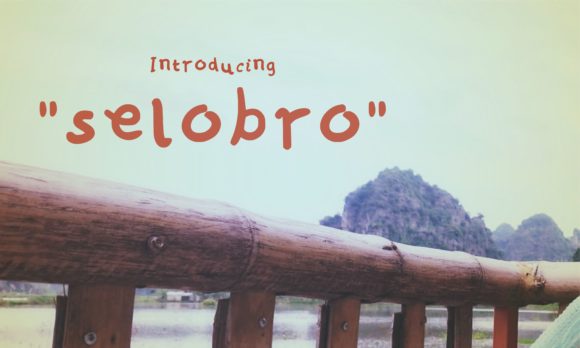
Introduction to Selobro Font Font
Fonts play a crucial role in design, and the Selobro Font font is a typeface that brings both character and versatility to any project. Whether you’re working on a branding project, a website, or a print design, the Selobro Font font offers a unique style that can elevate your work.
| 📌 Font Name | Selobro Font |
| 👤 Author | be young |
Selobro is a fun and friendly handwritten font.
Use it to make your ideas even more realistic and create spectacular designs .
Key Features of Selobro Font Font
Why Choose Selobro Font Font?
The Selobro Font font is more than just a typeface – it’s a design tool that helps you communicate your message with style and clarity. Its unique character set and versatile design make it suitable for a wide range of applications, from elegant invitations to bold headlines.
With its carefully crafted letterforms and balanced proportions, the Selobro Font font ensures readability and visual appeal across all mediums.
What makes Selobro Font font special?
The Selobro Font font stands out with its unique design, exceptional readability, and versatility across various design applications.